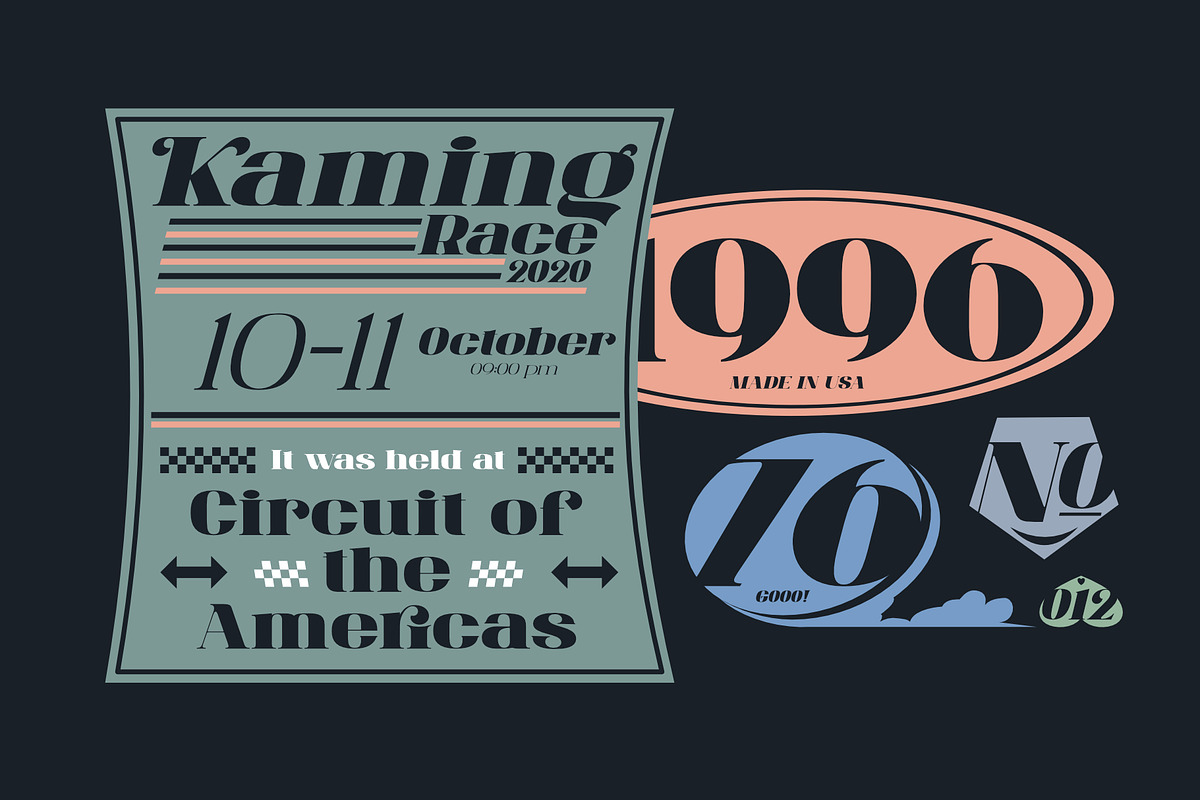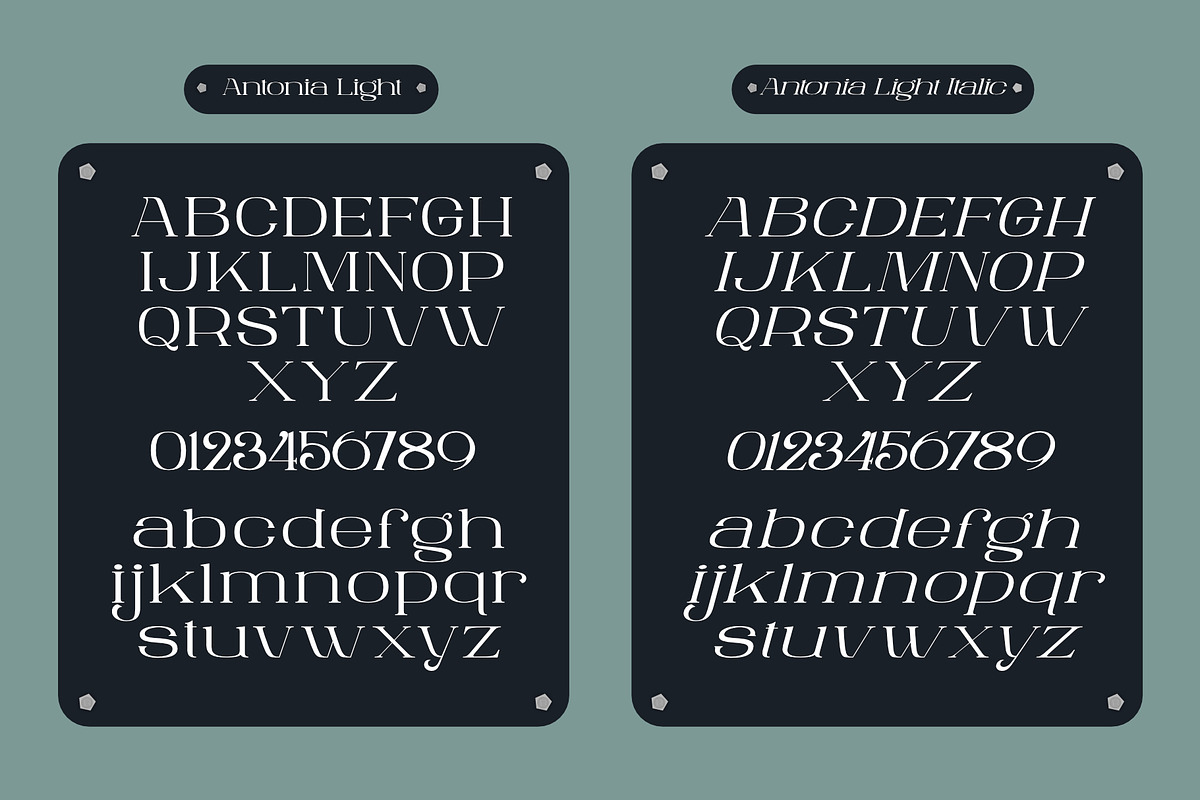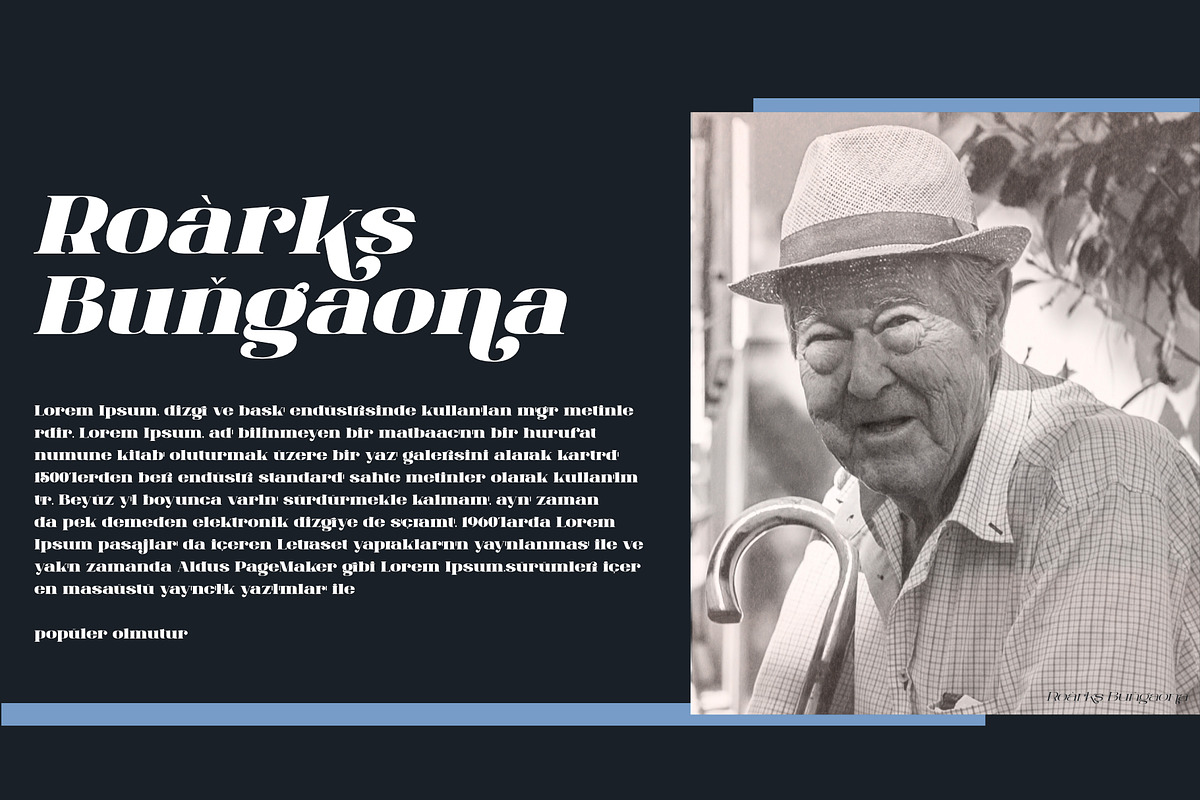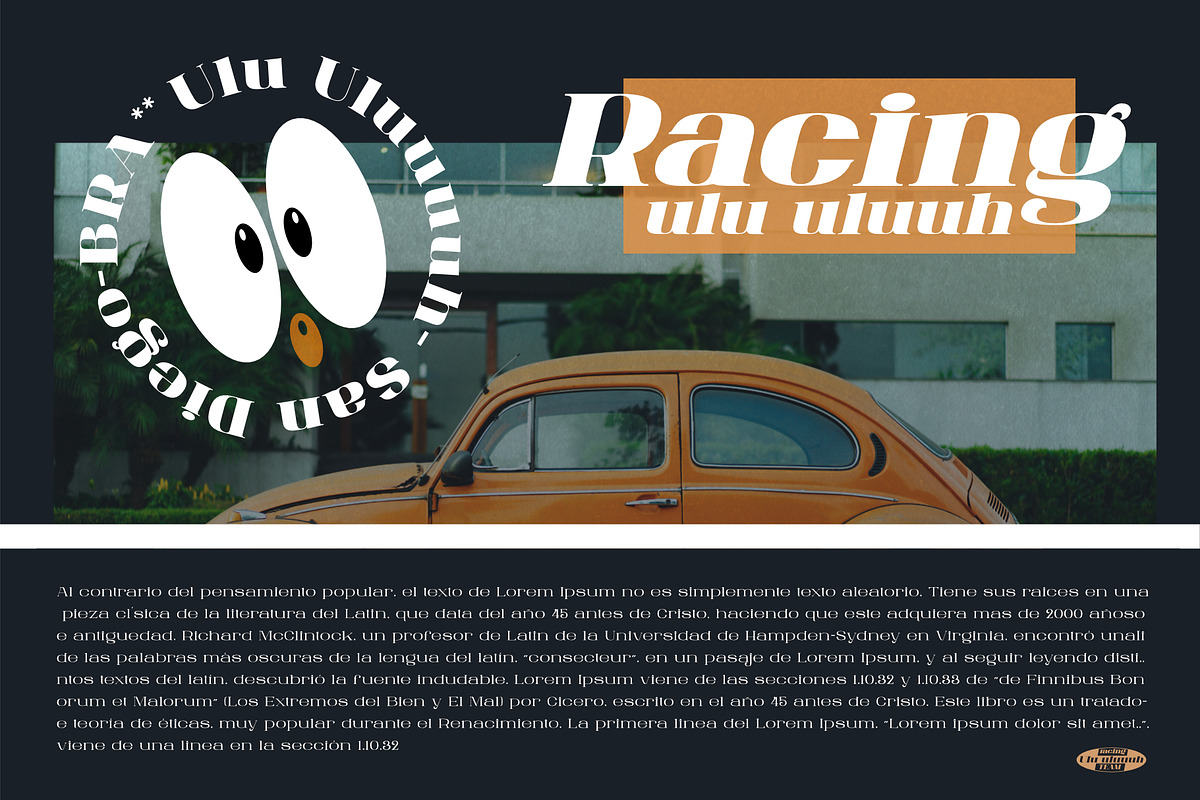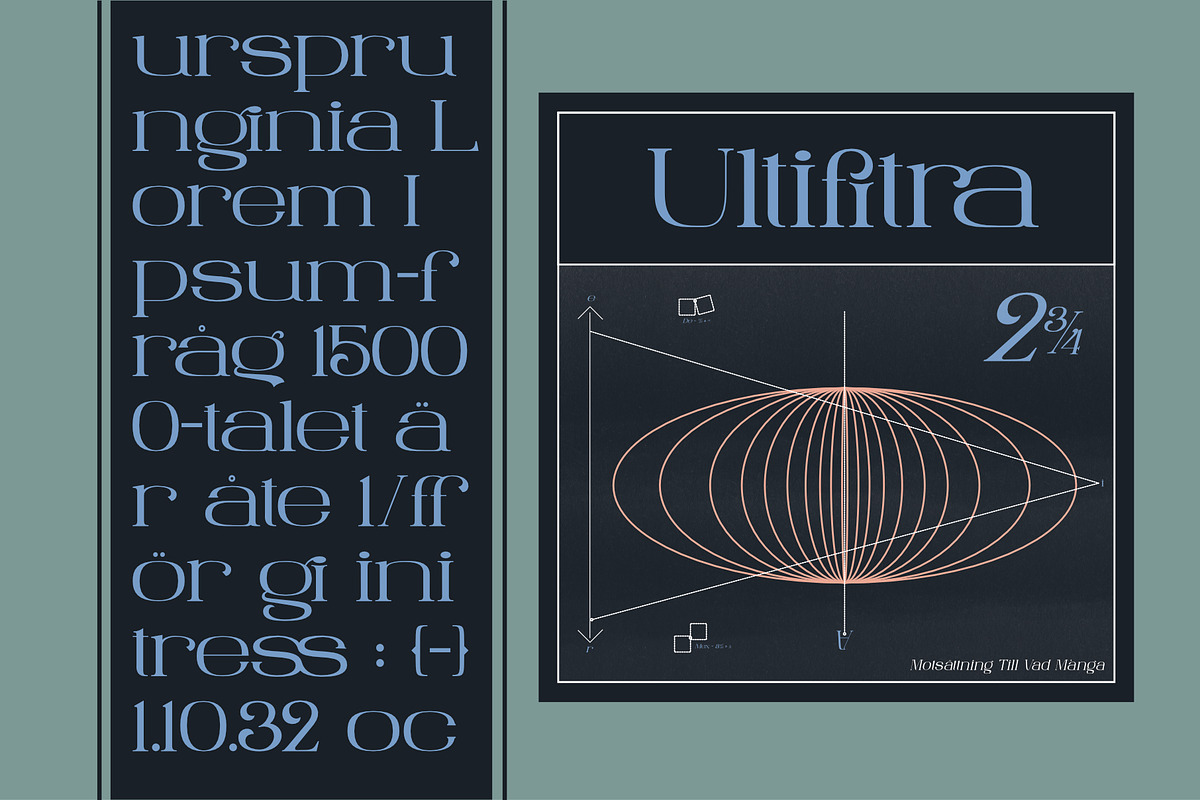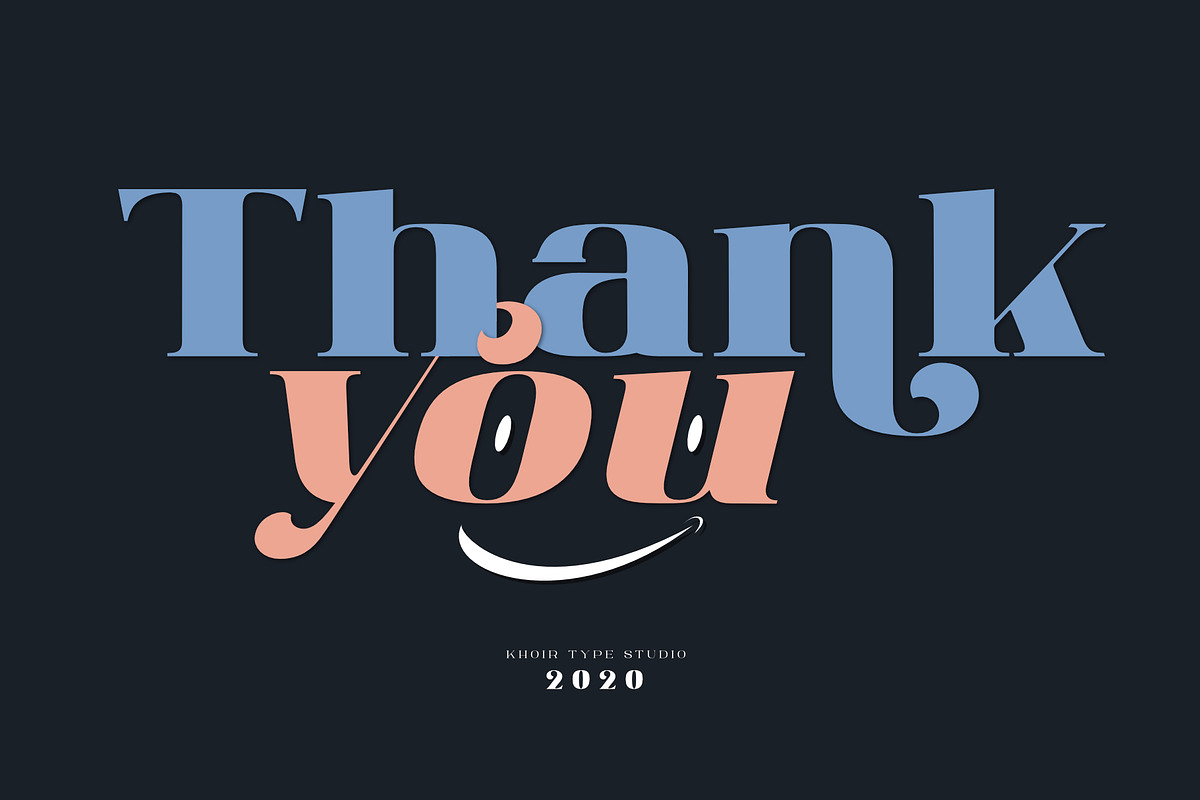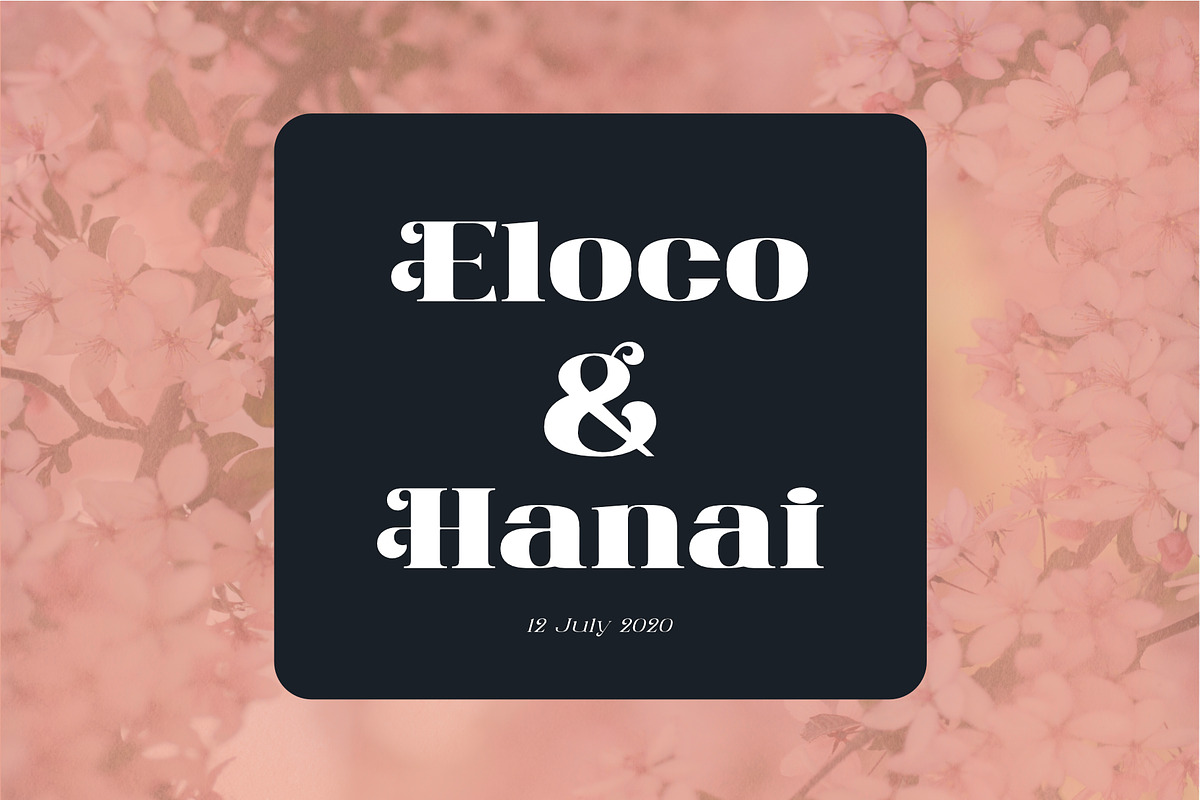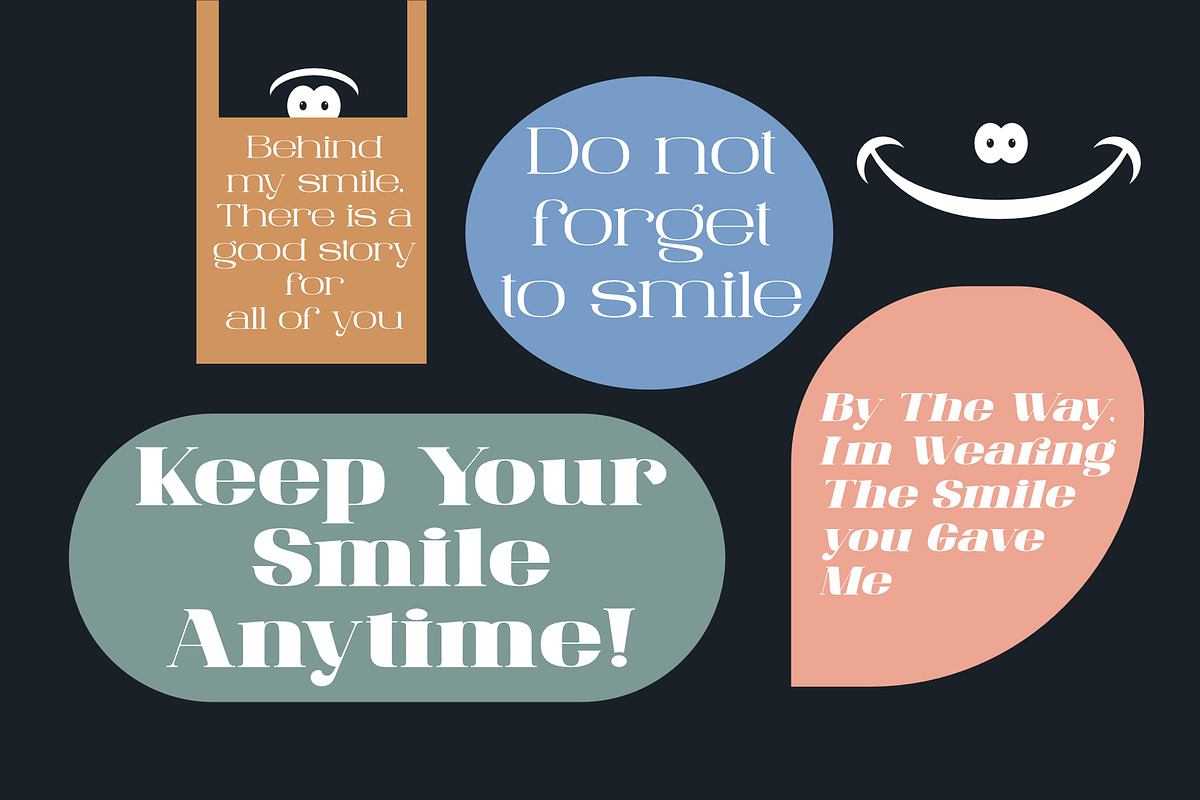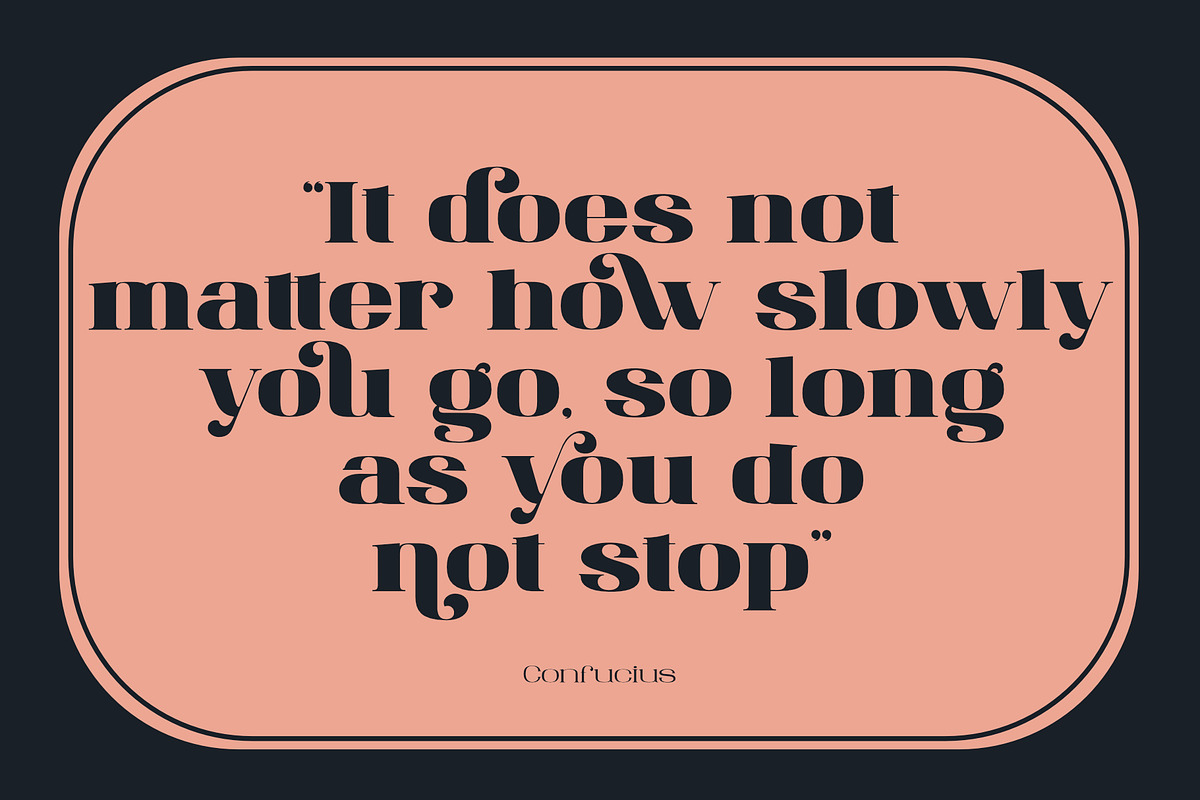
ANTONIA - The Classino Serif
Introducing the elegant but memorable Serif Antonia The classino, which combines the style of ancient serifs combined with modern Serifs, Antonia is equipped with four font variations namely, Regular, italics, light, provided by each alternative letter and Ligature, to make it easier for you to make the design you want. so what are you waiting for!
- Uppercase Characters
- Lowercase Characters
- Foreign Languages Support: ÀÁÂÃÄÅÆÇÈÉÊËÌÍÎÏÐÑÒÓÔÕÖØÙÚÛÜÝßàáâãäåæçèéêëìíîïñòóôõöøùúûüýÿ